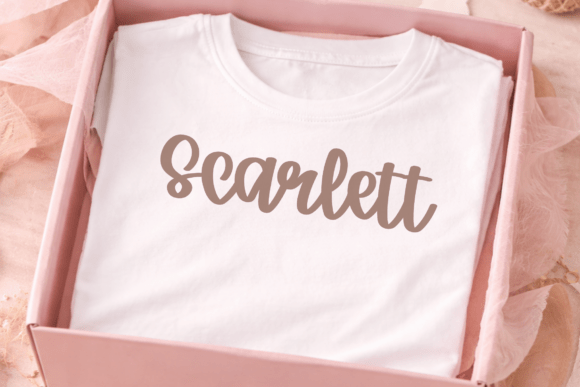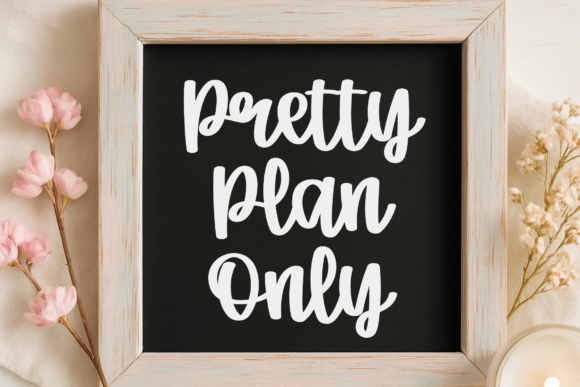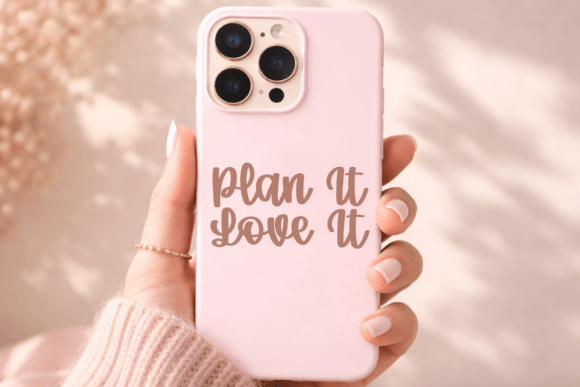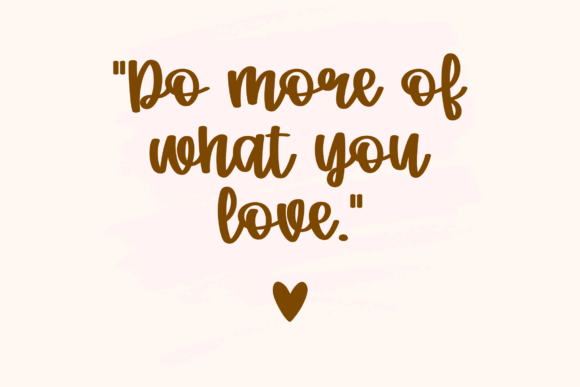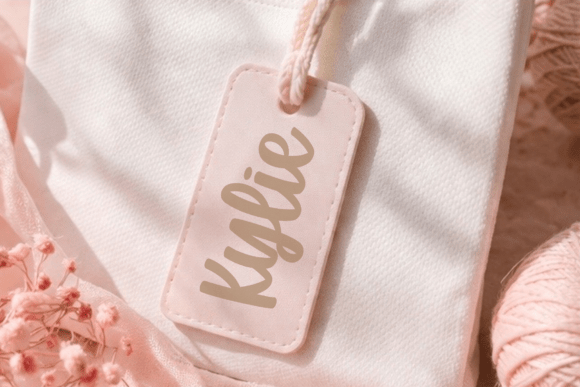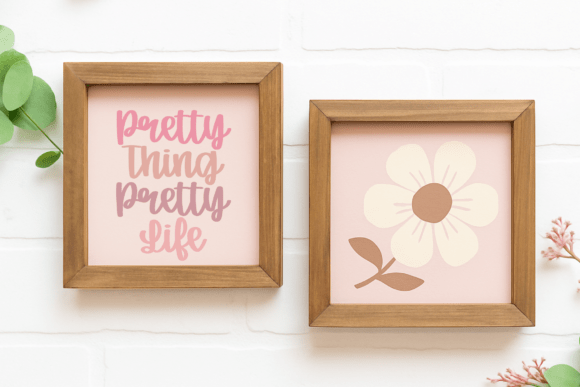
Discovering the Perfect Handwritten Script: Amber Lift Font
You know that moment when you’re brainstorming ideas for a new project and you stumble upon the perfect font that instantly elevates your design? For many creatives, that moment is what makes all the difference between a good design and a great one. And that’s exactly what we’re excited to share with you today – the Amber Lift Font, a beautiful, modern handwritten script designed to bring warmth and coziness to your designs.
With its smooth strokes and natural flow, the Amber Lift Font creates a soft and friendly look that feels both stylish and approachable. Perfect for branding, logos, social media, digital planners, and everyday design use, this font is a valuable addition to any designer’s toolkit. Its balanced and easy-to-read style makes it versatile while still maintaining a natural handwritten charm that’s hard to resist.
Key Features of Amber Lift Font
- Unique Characteristics: The Amber Lift Font features a unique, hand-drawn design with a warm and inviting aesthetic, making it perfect for use in branding, packaging, and editorial design.
- Character Set: The font includes a comprehensive character set, including Latin, Cyrillic, and Greek alphabets, as well as a range of punctuation marks and symbols.
- Scalability: The font is highly scalable, making it suitable for use in a wide range of applications, from small text to large headlines.
Amber Lift Font Review
First off, I have to say that I was immediately drawn to the ✨ elegant and modern aesthetic of the Amber Lift Font. It’s a beautifully crafted typeface that exudes a sense of sophistication and refinement. The font’s clean lines and subtle curves make it perfect for a wide range of applications, from fashion and beauty brands to tech and finance companies.
The ✨ open and airy feel of the font is also a major plus, making it easy to read even in smaller font sizes. Additionally, the font’s ✨ wide language support and ✨ extensive glyph set make it a versatile choice for designers working on global projects.
- ⚠️ The font may not be suitable for use in extremely small font sizes, as the letters can become difficult to read.
- ⚠️ The font’s high-end feel may not be the best fit for more casual or playful brands.
Overall, I’m impressed with the Amber Lift Font and think it’s a solid choice for designers looking for a modern and sophisticated typeface. While it may have some limitations, its strengths far outweigh its weaknesses, making it a great addition to any design arsenal.
Tips for Getting the Most Out of Amber Lift Font
For the best results, use Amber Lift Font in headings and titles to add a touch of elegance and sophistication. Experiment with different font sizes and styles to create visual hierarchy and balance in your design.
Amber Lift Font is perfect for:
– Luxury brand logos and identities
– High-end product packaging and labels
– Fashion and beauty branding and marketing materials
– Any design project that requires a touch of sophistication and elegance.
Alternatives to Amber Lift Font
Montserrat is a sans-serif font that is highly legible and versatile. It is perfect for use in digital interfaces, headings, and body text. Montserrat has a more modern feel compared to Amber Lift Font, with a slightly more geometric shape and a wider range of weights.
Comparison to Amber Lift Font: Montserrat is more modern and geometric, whereas Amber Lift Font has a more traditional feel. Montserrat is also more versatile and can be used for a wider range of applications.
Merriweather is a classic serif font that is perfect for use in body text and headings. It has a warm and inviting feel that is reminiscent of traditional printing. Merriweather is a great choice for designers who want to create a sense of nostalgia and tradition in their designs.